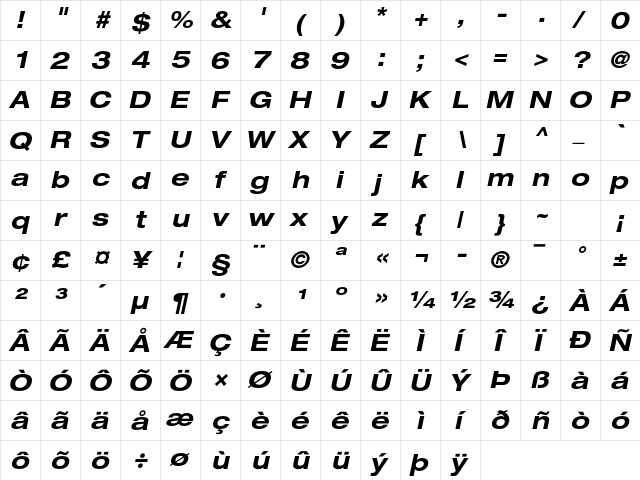
Helvetica Neue LT Pro 73 Bold Extended Oblique Font Preview
| Foundry | Linotype Library GmbH |
| Designer | Linotype Library GmbH |
Design Context for Helvetica Neue LT Pro Typeface
Helvetica Neue LT Pro offers clean, dependable letterforms without strong stylistic allegiance, making it a practical choice for designers who need flexibility. Its italic angle brings a sense of urgency and motion to the letterforms. The heavy weight commands attention and anchors typographic hierarchies.
Pro Tip: Use Helvetica Neue LT Pro for emphasis, pull quotes, and subheadings where its slanted energy can add rhythm to the layout.